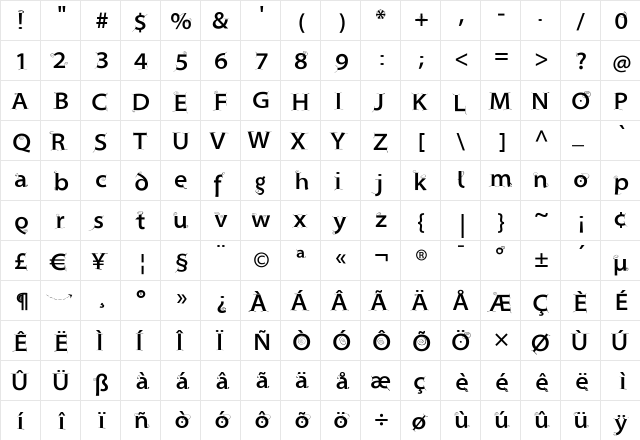
SuperSansMKringel Regular
Design Context for SuperSansMKringel Typeface
SuperSansMKringel offers clean, dependable letterforms without strong stylistic allegiance, making it a practical choice for designers who need flexibility.